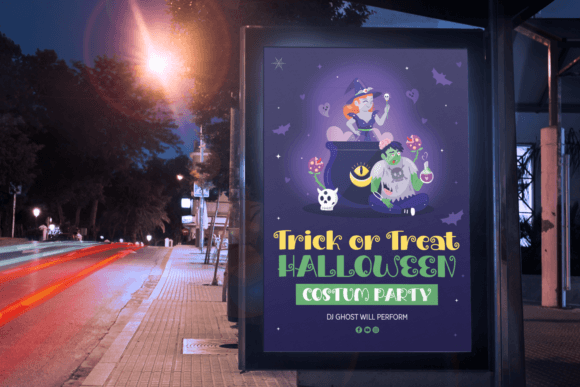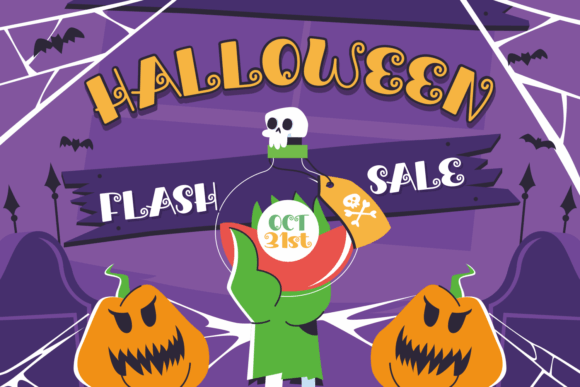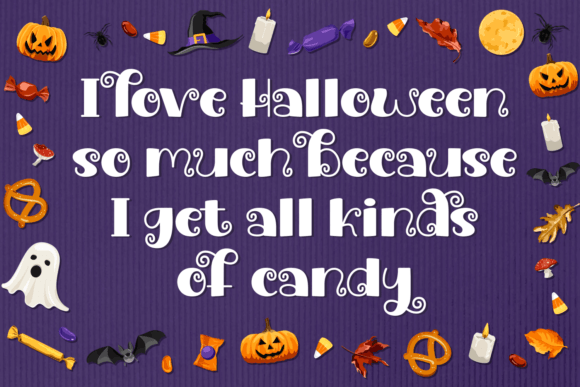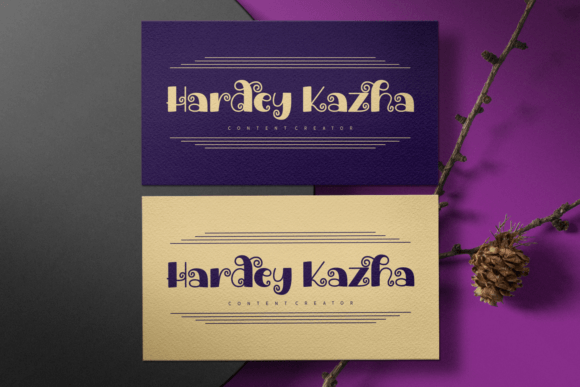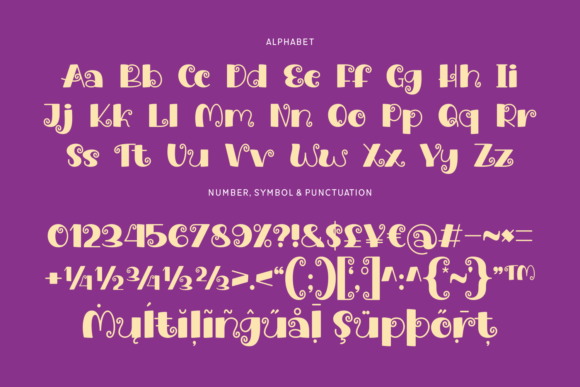
Unleash the Spookiness: Creepy Snack Font for Your Next Design Project
Are you looking for a font that will add a touch of spookiness and quirkiness to your designs? Look no further than the Creepy Snack Font. This display font is perfect for designers and crafters who want to create unique and eye-catching designs that require a whimsical, personalized style. In this article, we’ll dive into the features and benefits of the Creepy Snack Font and explore how you can use it to take your designs to the next level.
What is Creepy Snack Font?
Creepy Snack Font is a spooky and quirky display font that is sure to make your designs stand out. With its bold and playful letters, this font is perfect for creating eye-catching designs that require a touch of whimsy. Whether you’re designing a Halloween poster, a greeting card, or a party invitation, Creepy Snack Font is the perfect choice.
Key Features of Creepy Snack Font
- Unique and Quirky Design: Creepy Snack Font features a unique and quirky design that is sure to add a touch of personality to your designs.
- Spooky and Playful: This font has a spooky and playful vibe that’s perfect for Halloween-themed designs or any project that requires a touch of whimsy.
- Display Font: Creepy Snack Font is a display font, making it perfect for headlines, titles, and other design elements that require a bold and eye-catching font.
Benefits of Using Creepy Snack Font
There are many benefits to using Creepy Snack Font in your designs. Here are just a few:
- Adds a Touch of Personality: Creepy Snack Font adds a touch of personality to your designs, making them stand out from the crowd.
- Perfect for Halloween-Themed Designs: This font is perfect for Halloween-themed designs, but it’s also versatile enough to use in other designs that require a touch of whimsy.
- Easy to Read: Despite its quirky design, Creepy Snack Font is easy to read, making it perfect for use in headlines, titles, and other design elements.
- Customizable: You can customize Creepy Snack Font to fit your design needs, making it a versatile font that can be used in a variety of projects.
Design Ideas Using Creepy Snack Font
Here are some design ideas that you can use Creepy Snack Font for:
- Halloween Posters: Create eye-catching Halloween posters using Creepy Snack Font.
- Greeting Cards: Design spooky and quirky greeting cards for Halloween or other occasions.
- Party Invitations: Create party invitations that are sure to stand out with Creepy Snack Font.
- T-Shirts and Mugs: Design custom t-shirts and mugs using Creepy Snack Font.
Creepy Snack Font is a spooky and quirky display font that’s perfect for designers and crafters who want to add a touch of personality to their designs. With its unique and quirky design, this font is sure to make your designs stand out. Whether you’re designing a Halloween poster, greeting card, or party invitation, Creepy Snack Font is the perfect choice. So why wait? Download Creepy Snack Font today and start creating spooky and quirky designs that are sure to impress.